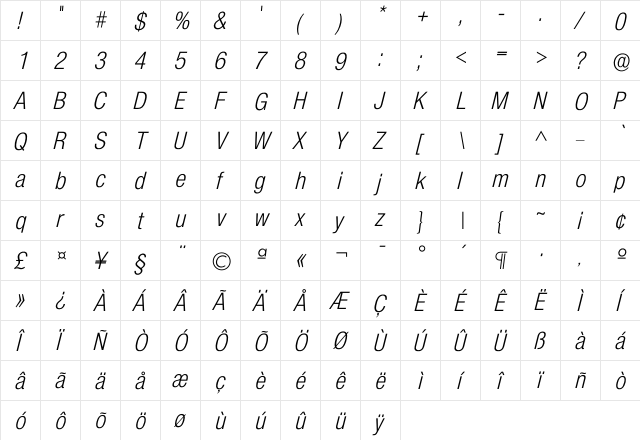
Icolnova Regular
Design Context for Icolnova Typeface
Icolnova is a composed and adaptable typeface that performs quietly and consistently across a wide range of design contexts.